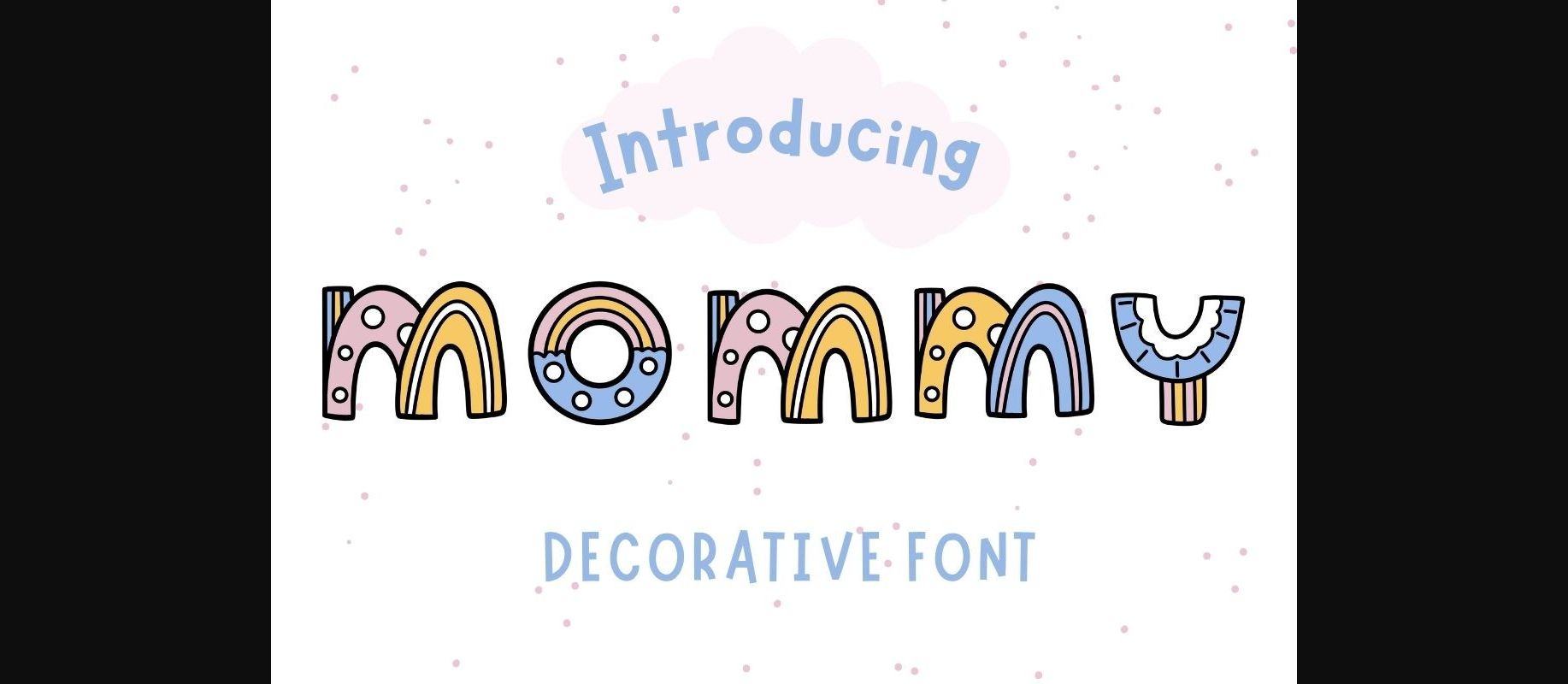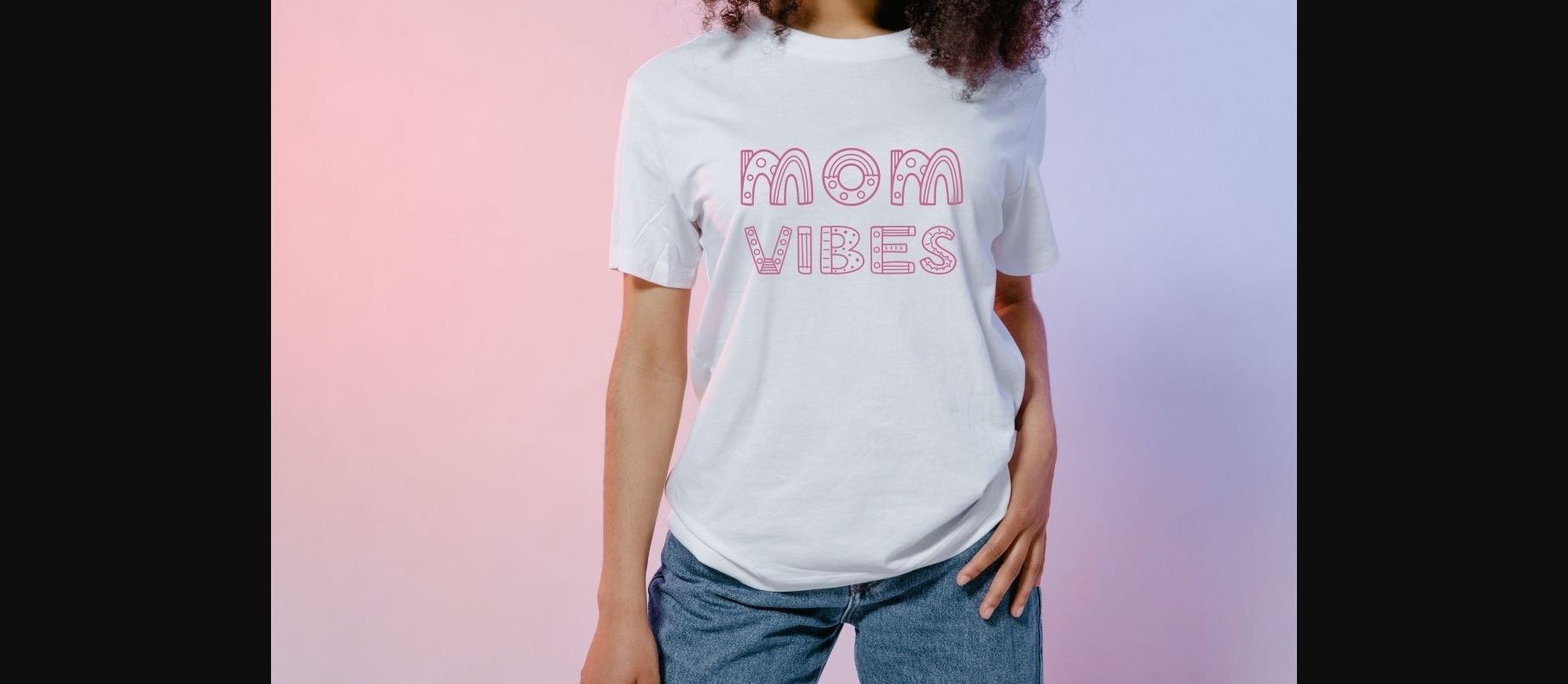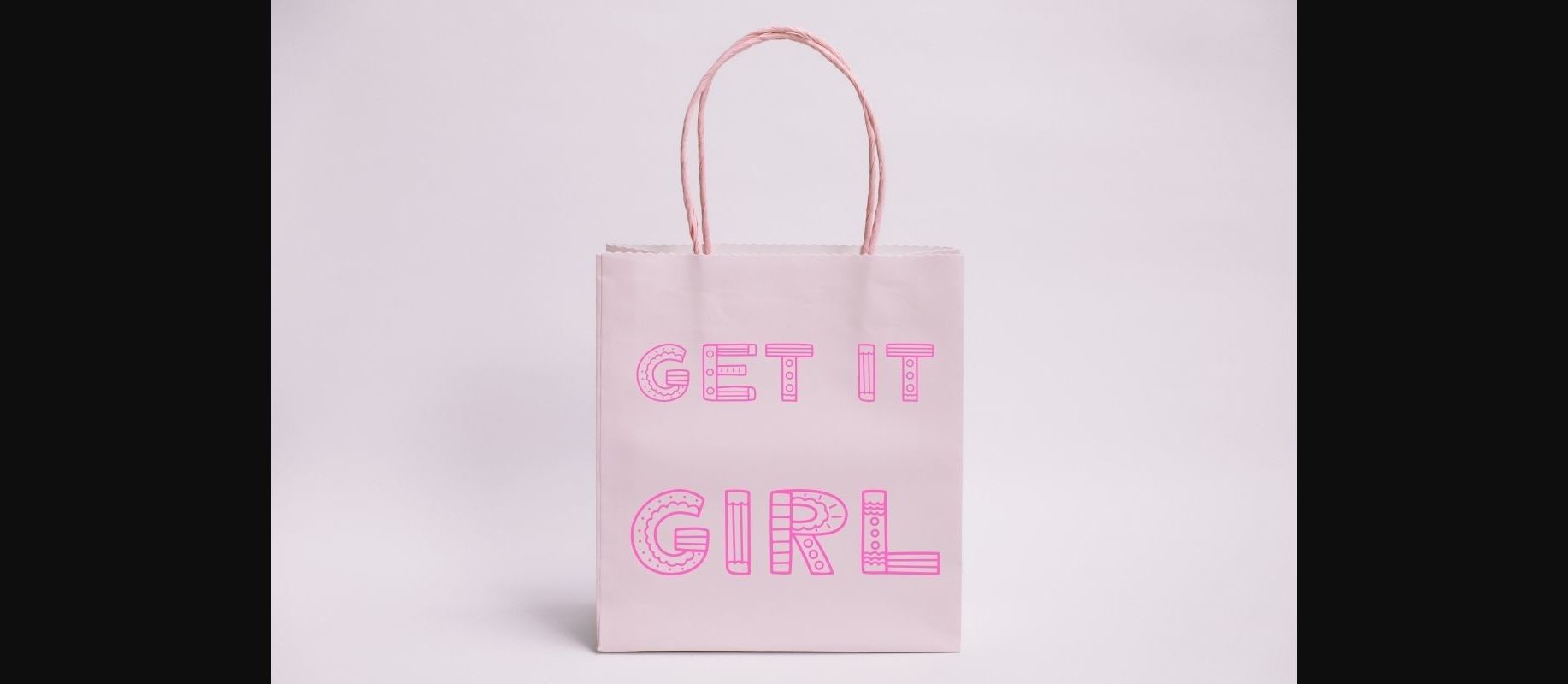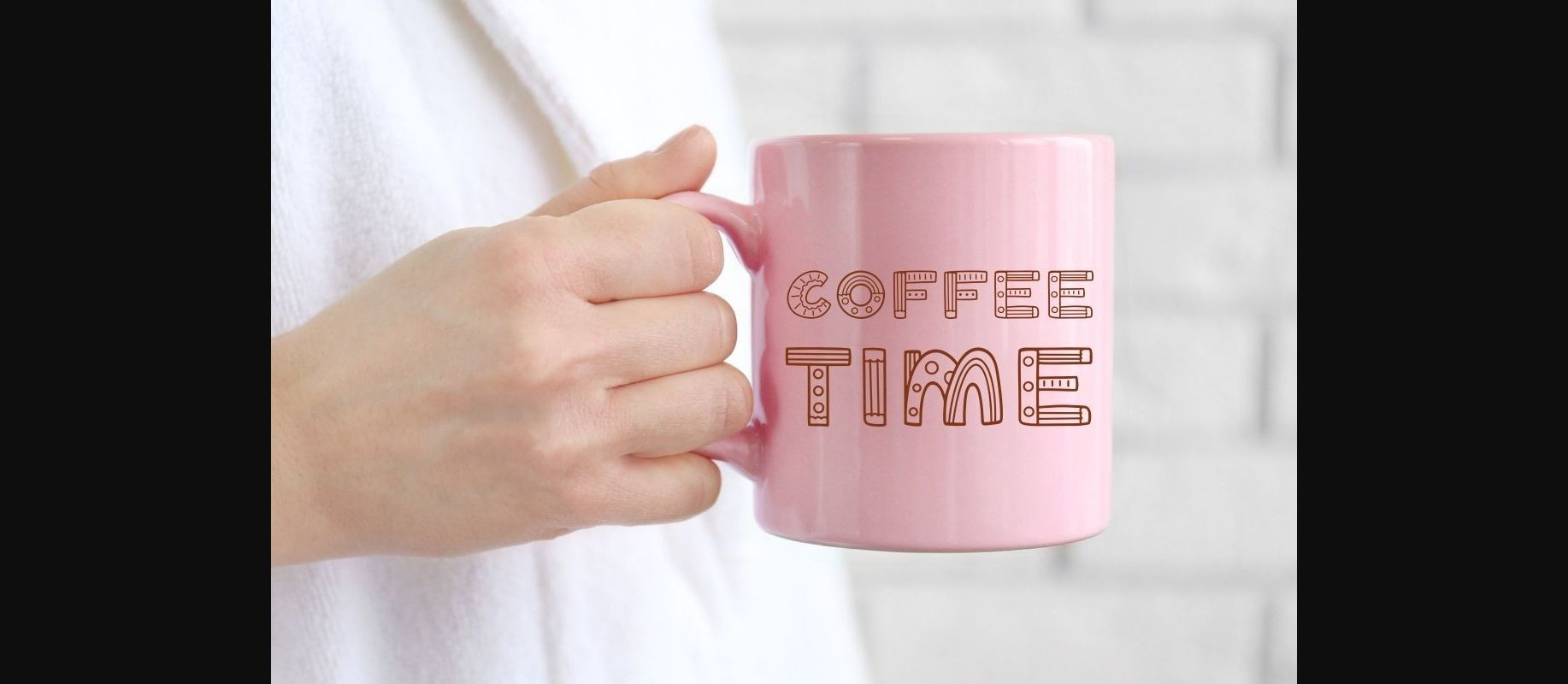
About Mommy Font
Mommy is a fun decorative font suitable for a wide spectrum of applications, such as quotes, stickers, greeting cards, headlines, teaching materials, and more. Add it to any of your designs, and enjoy the results!